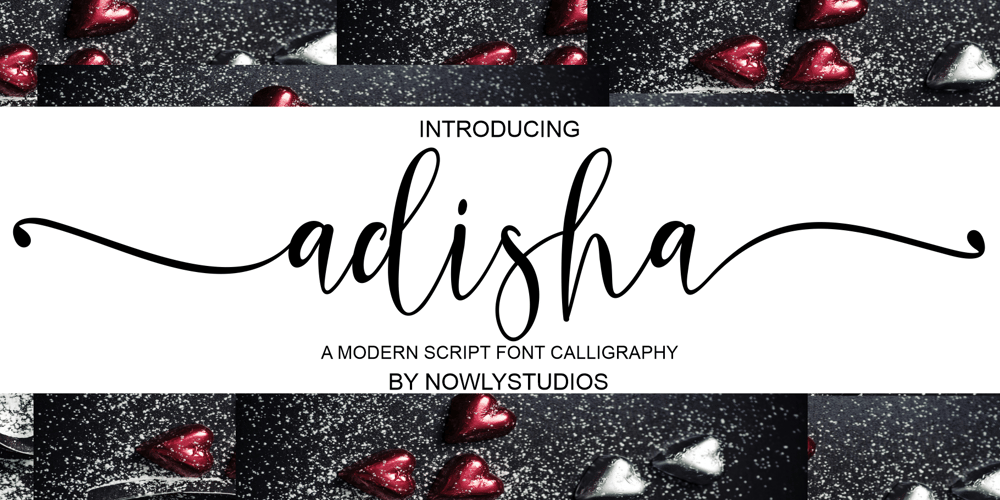
Adisha Script Font Family was designed by Irfan Nouli and published by Nowlystudios. Adisha Script contains 1 styles and family package options. Adisha Script is a sweet calligraphy writing but maintains its elegance. This will make your design stand out!Adisha Script is the perfect typeface for any kind of project you have, such as advertising, branding, graphic design, quotes, wedding designs, logos for online or offline businesses, photography and more. Make your business more beautiful!Thank’s !